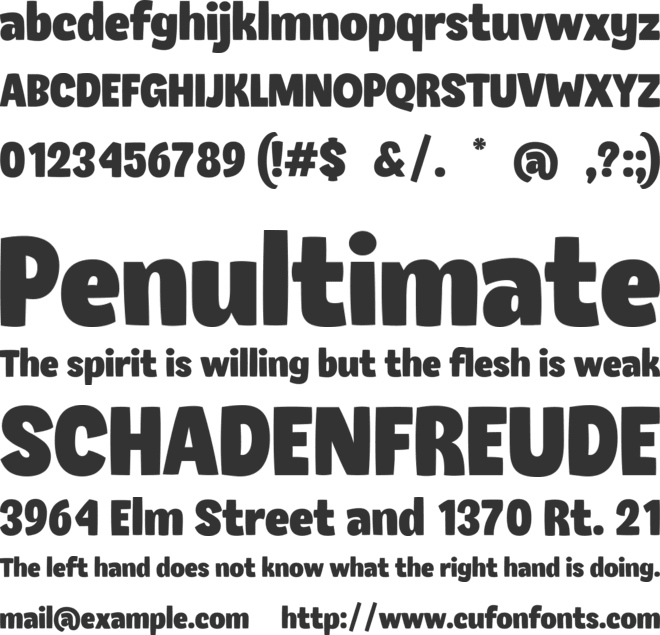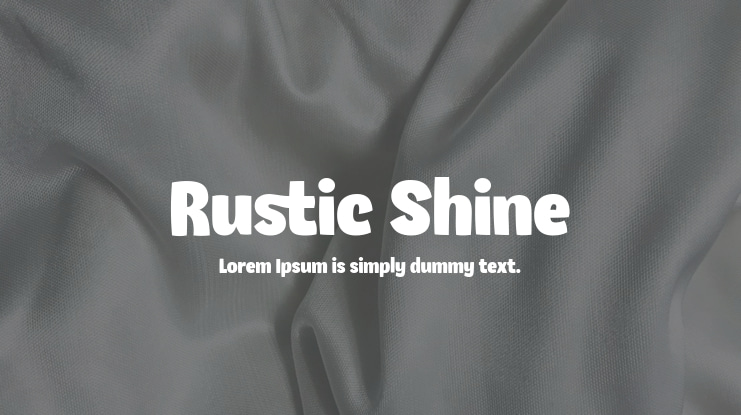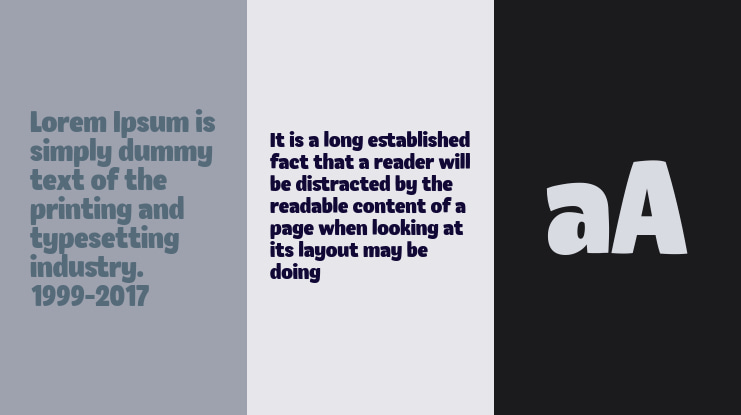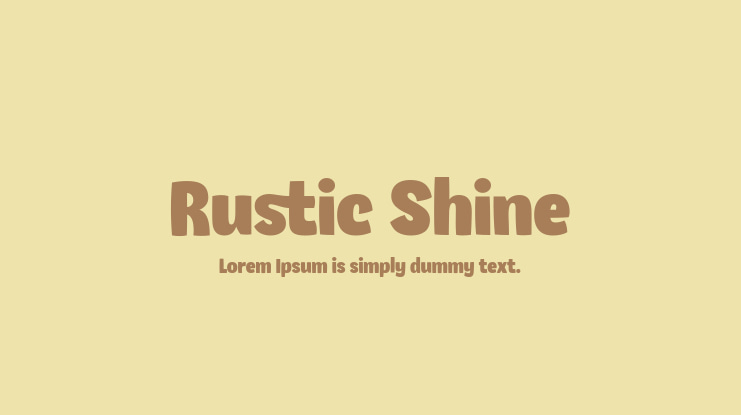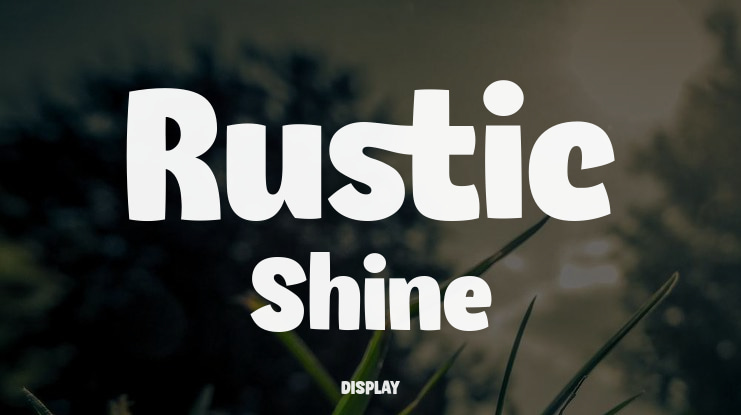
Rustic Shine Font
Introducing “Rustic Shine” – a captivating display font that’s bound to make your creative projects stand out. This font embodies boldness, with its thick, fat, and block-like letterforms, exuding a sense of confidence and strength. Its playful and fun demeanor adds a touch of retro charm to your designs, making them truly unforgettable.
What sets “Rustic Shine” apart is its elegance, brought to life through rich alternative characters and ligatures. These unique features provide you with a plethora of design options, allowing you to craft text that’s both visually striking and distinctively yours. Whether you’re working on a logo, poster, or website, this font’s versatility shines through.
Embrace the beauty of “Rustic Shine” to infuse your projects with a touch of timeless sophistication. Let your creativity run wild and watch as this font brings your ideas to life in ways you never thought possible. Elevate your designs today with “Rustic Shine” and experience the magic of bold, playful, and elegant typography.